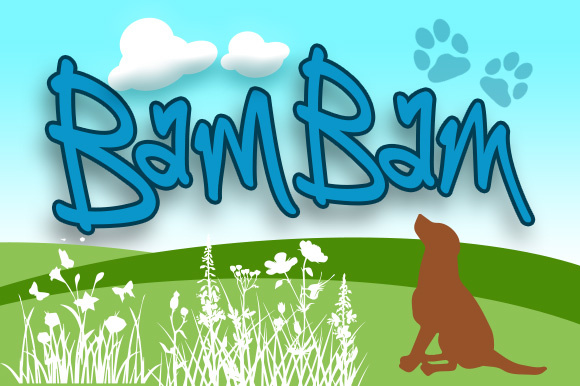
HomeScript FontsBamBam Font Script Fonts BamBam Font FacebookXPinterestWhatsApp About BamBam Font BamBam, a handwritten playful, almost graffiti style font. DOWNLOAD NOW People also explored Nocturnal Font Gerand Nataline Font HARUKA Cindy Font Falisha Script Kafehoc Font Hanukkah Font Romelia Font 325 0 TagsBamBam Font Previous articleDunheall FontNext articleSottee Font LEAVE A REPLY Cancel reply Comment: Please enter your comment! Name:* Please enter your name here Email:* You have entered an incorrect email address! Please enter your email address here Website: Save my name, email, and website in this browser for the next time I comment. Personal Use Free Cuttering Personal Use Free Read more about this font Simple Personal Use Free Read more about this font Cute Butterfly Personal Use Free Read more about this font Abuget Free Script Personal Use Free Read more about this font BLOG Top 7 Google Fonts Alternatives for Faster and Privacy-Friendly Web Design (2025) Top 7 Google Fonts Alternatives for Faster and Privacy-Friendly Web Design (2025) When it comes to web typography, Google Fonts has long been the go-to... 5 Fonts That Will Dominate Design Trends in 2026 Best Fonts for T-Shirt Design – Top 2025 Picks Best Fonts for YouTube Videos: Make Your Thumbnails Stand Out